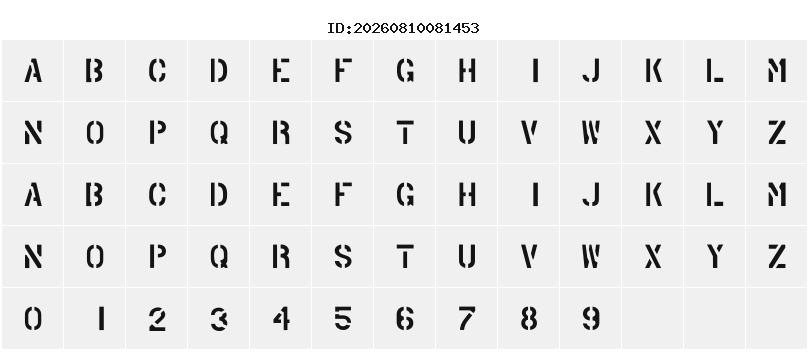
• Font Name: PHANTOM STENCIL
• Font Style: PHANTOM STENCIL
• Full Font Name: PHANTOM STENCIL
• Version: Version 1 DESIGNED BY MARK A KLEIN 908MXS - MARCH 2001
• Designer: High-Logic - Erwin Denissen 1999
• Description: Template
About PHANTOM STENCIL.ttf
PHANTOM STENCIL.ttf is a modern, elegant sans-serif font designed for ultimate readability and visual harmony. Perfect for branding, headlines, web design, and print materials.